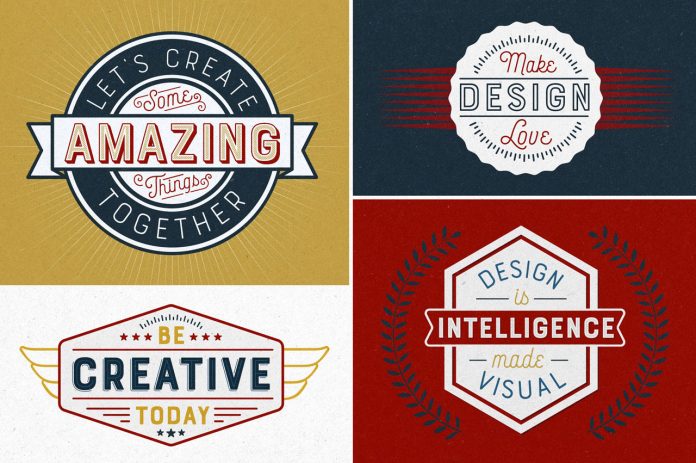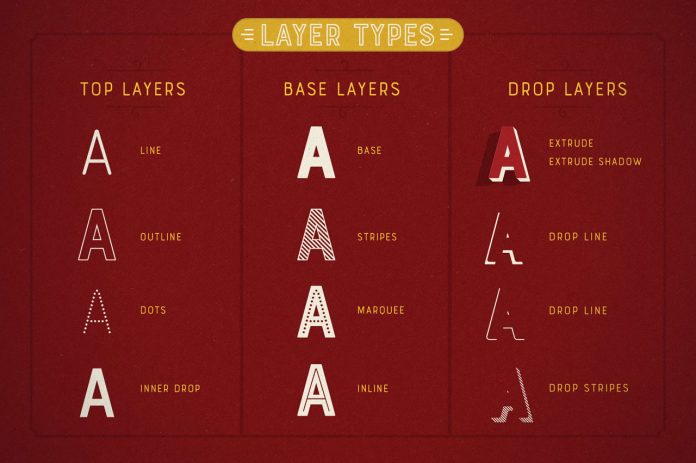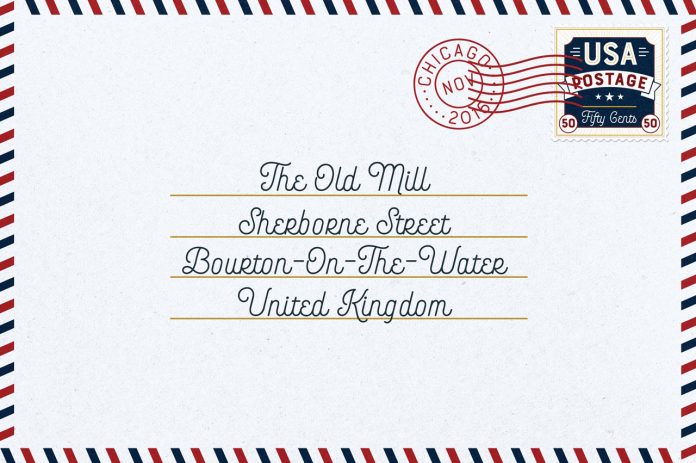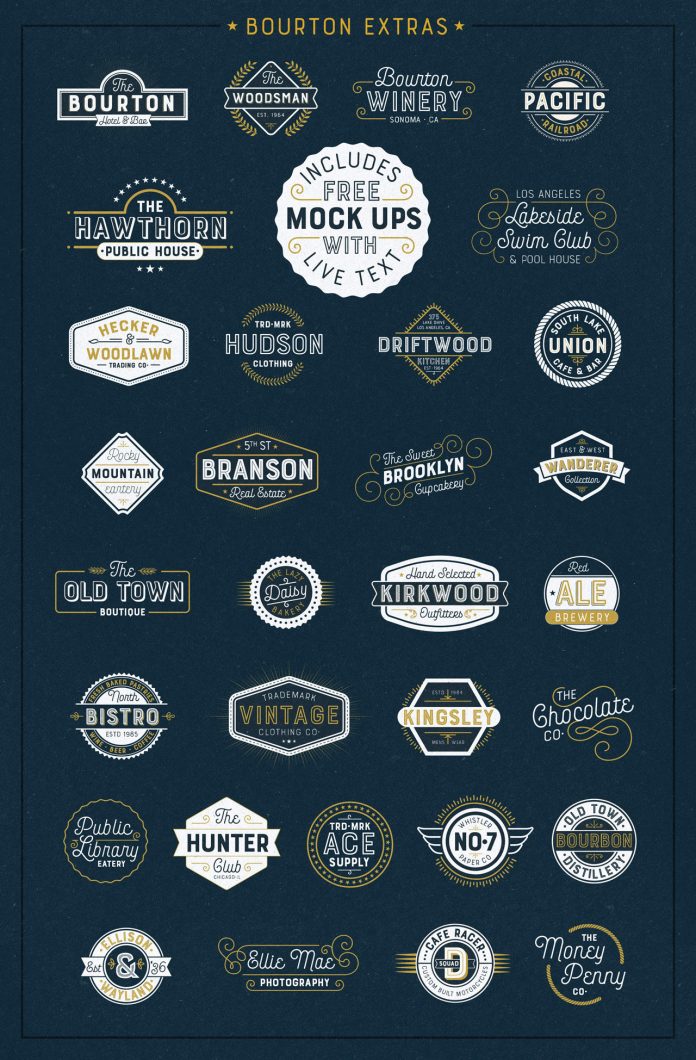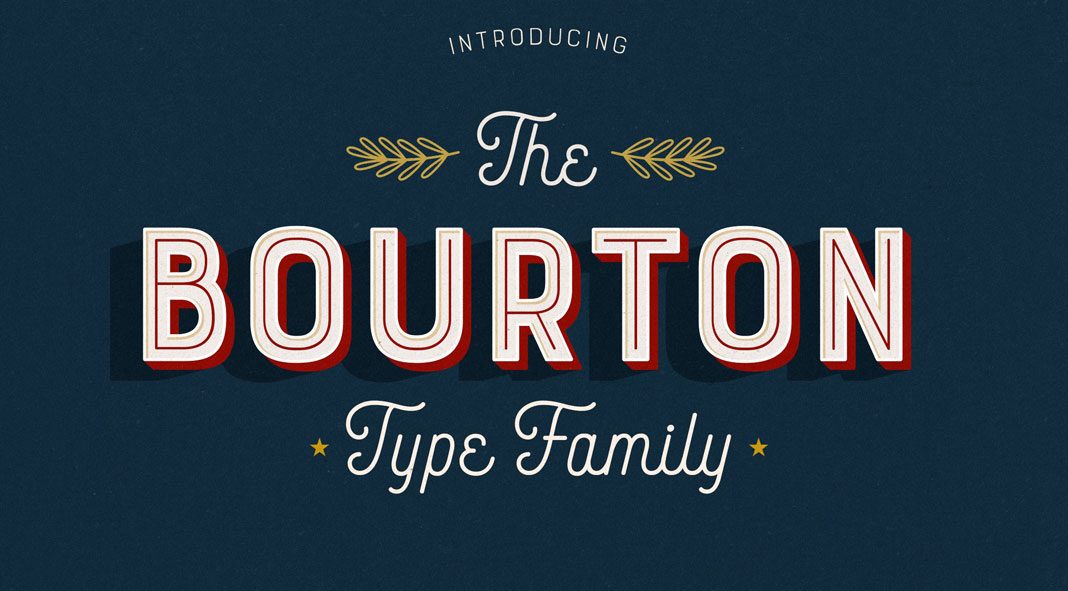
Bourton Typeface: 34 individual vintage-inspired fonts with multiple layering options.
Created in 2016 by Kimmy Design, Bourton is an extensive font collection consisting of 34 typefaces ranging from script to sturdy sans-serif styles. You can use them separately or in combination to create diverse designs in no time. In addition, the collection comes with a set of 30 free bonus logo templates. Learn more below or click on one of the following links to download the Bourton typeface collection.
Many of the fonts come with great layering options and stylistic alternatives. This way, you have endless possibilities to combine these fonts. All of the typefaces are inspired by good old signage lettering from the 1950s – 60s. To learn more, just click on one of the following links.